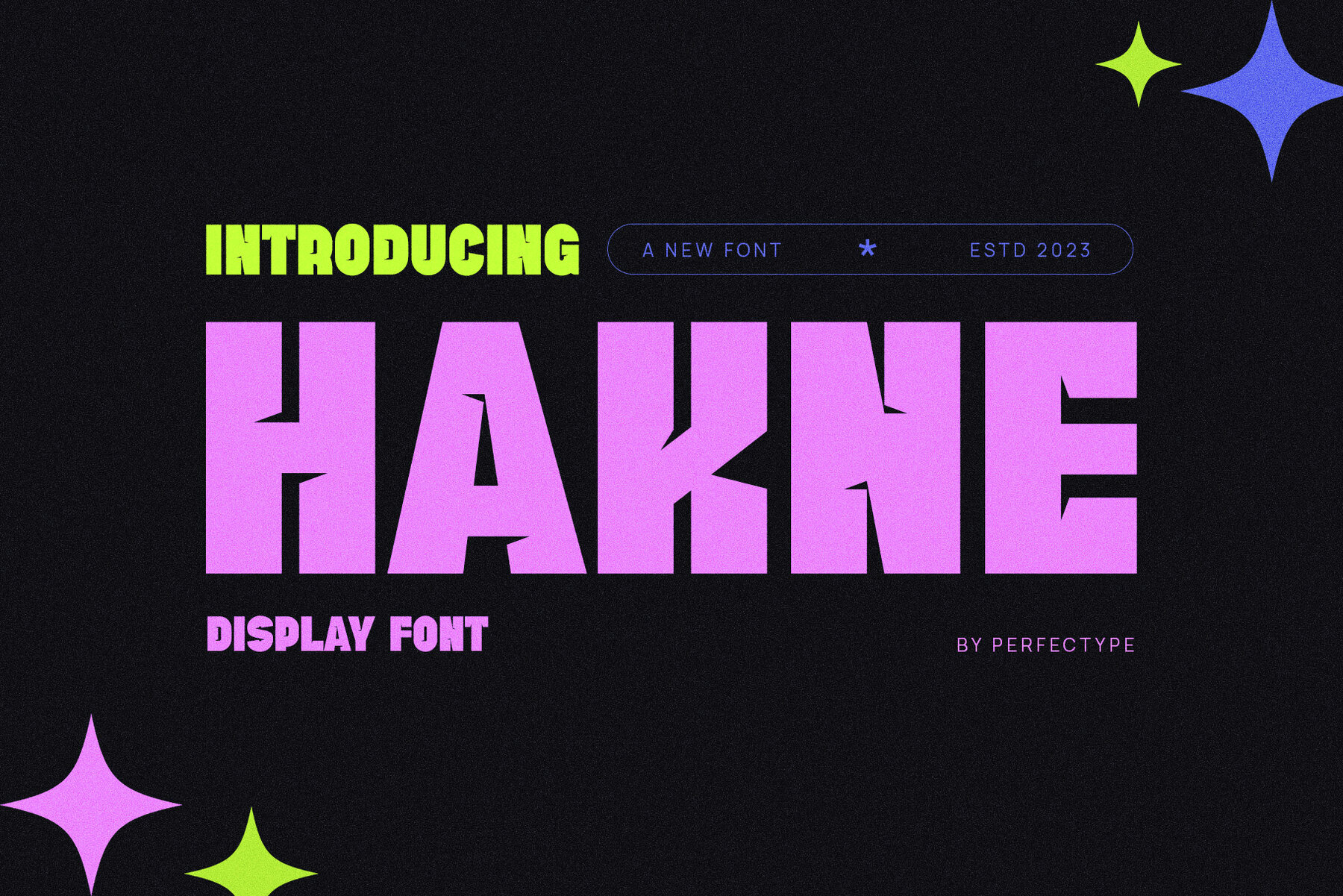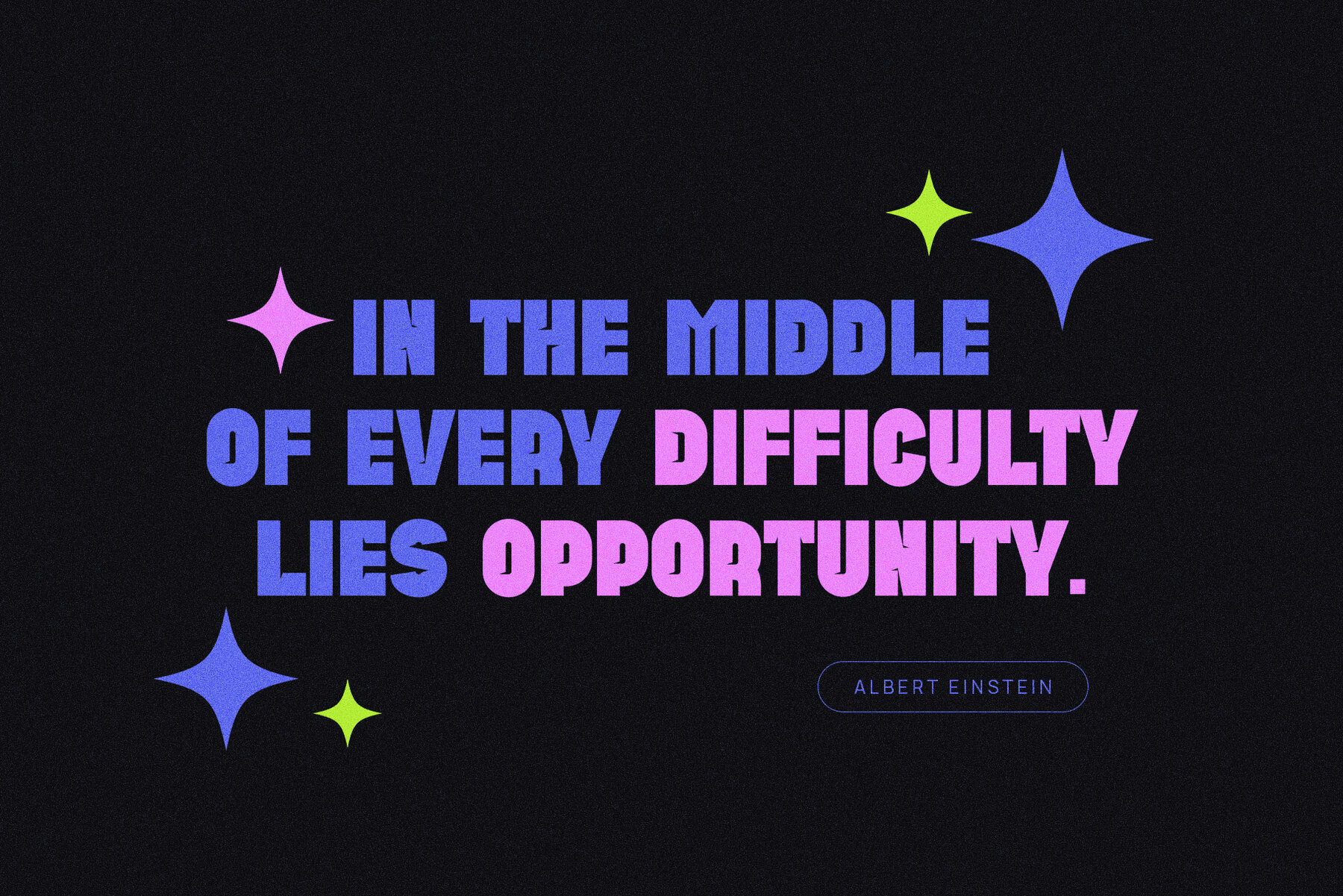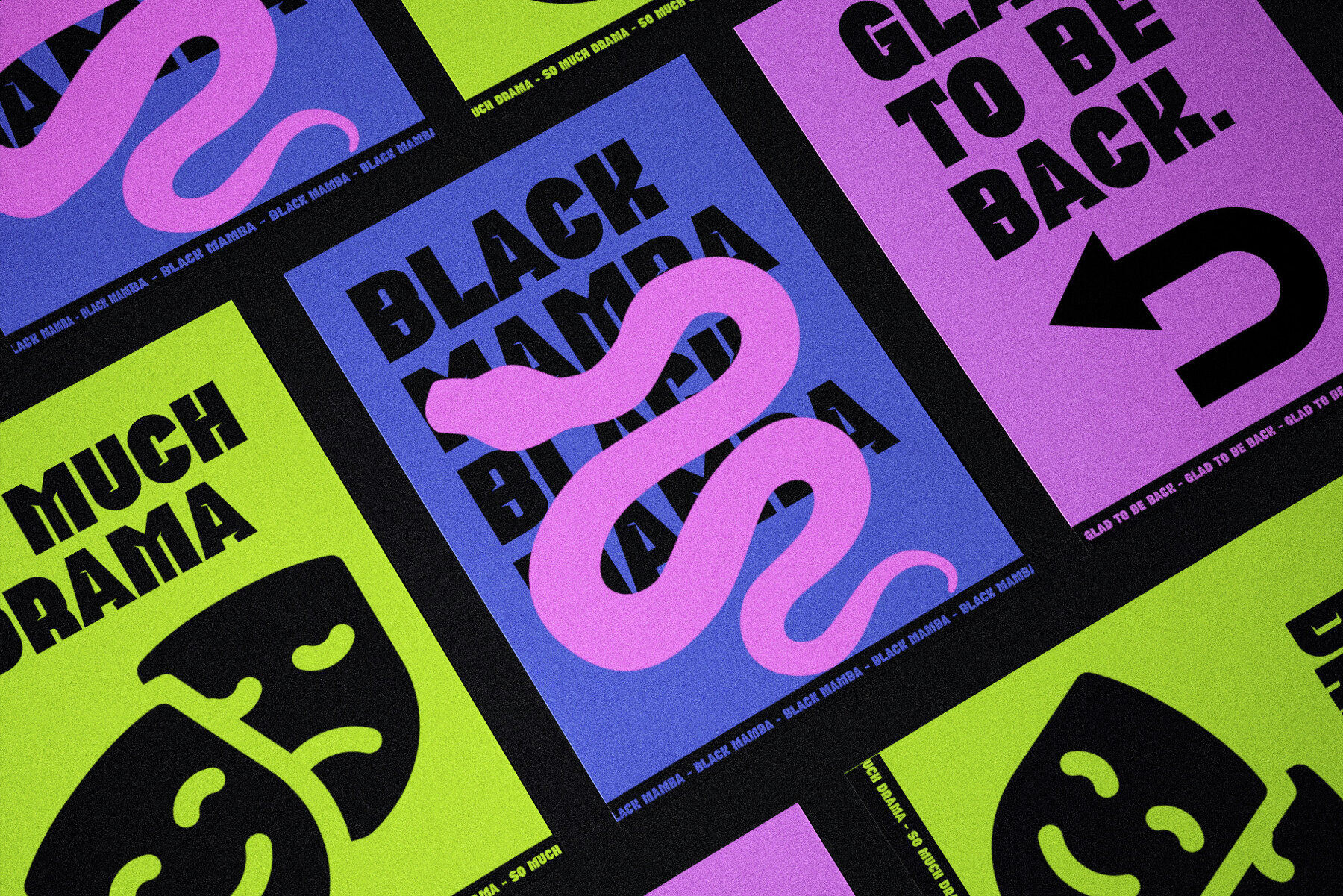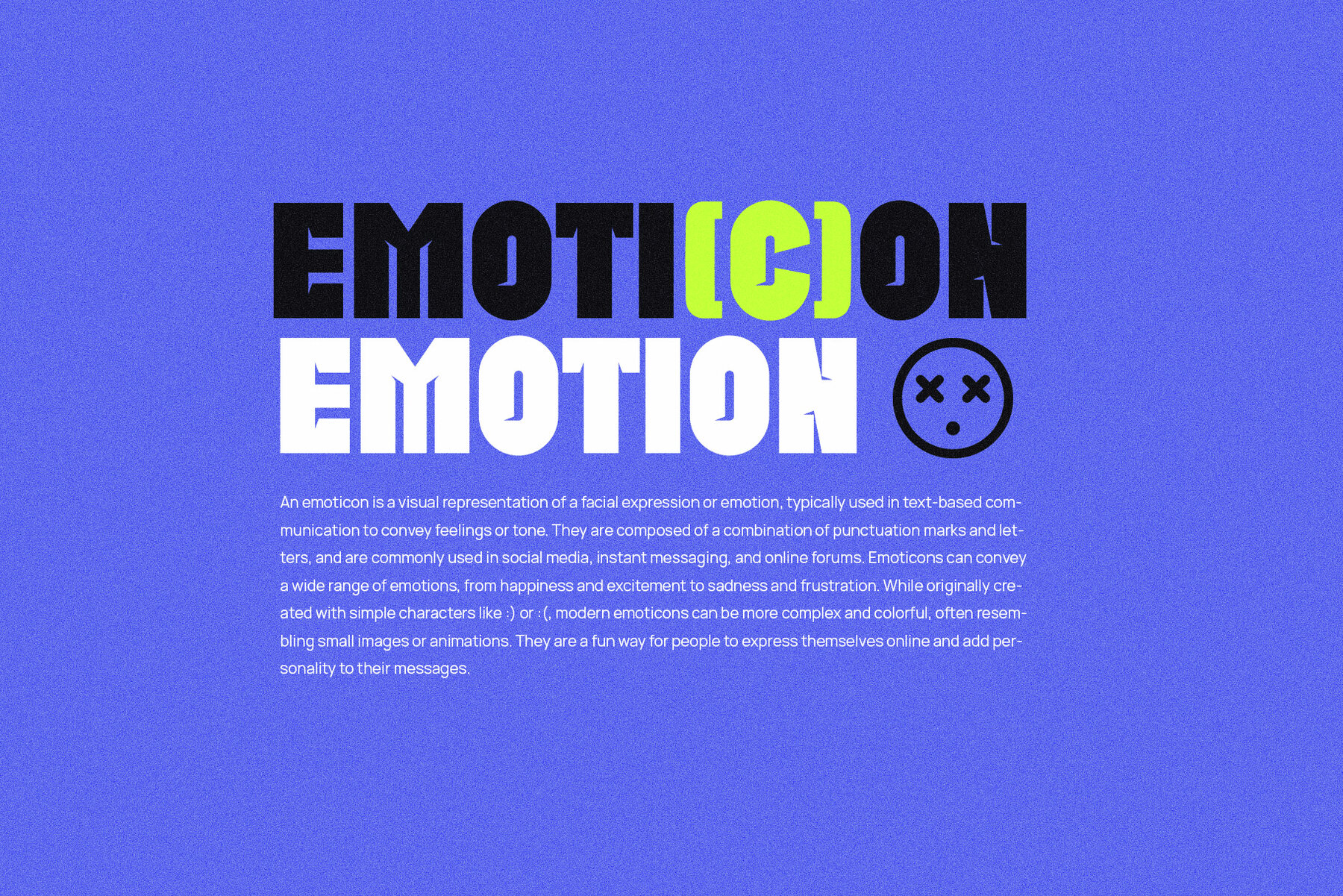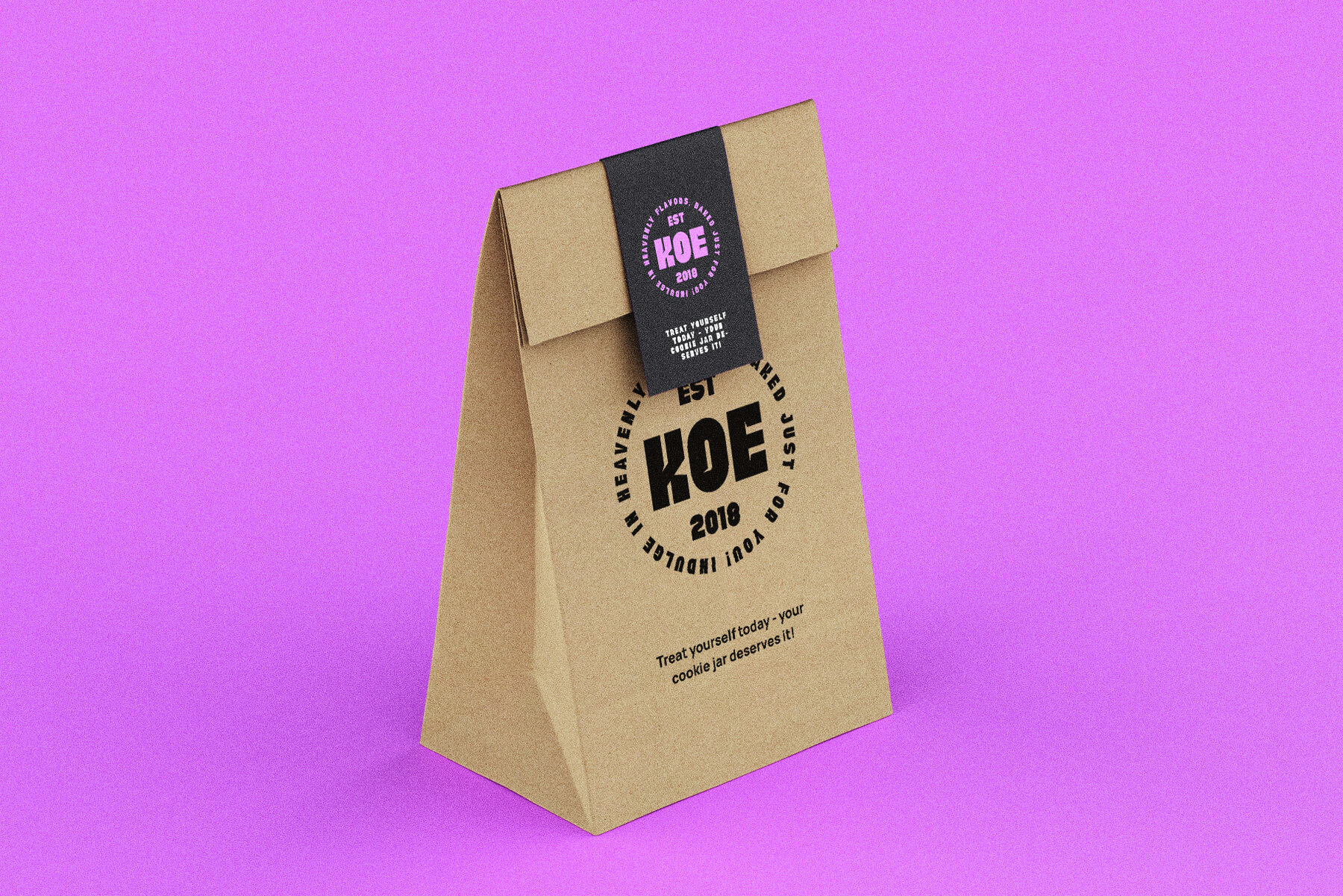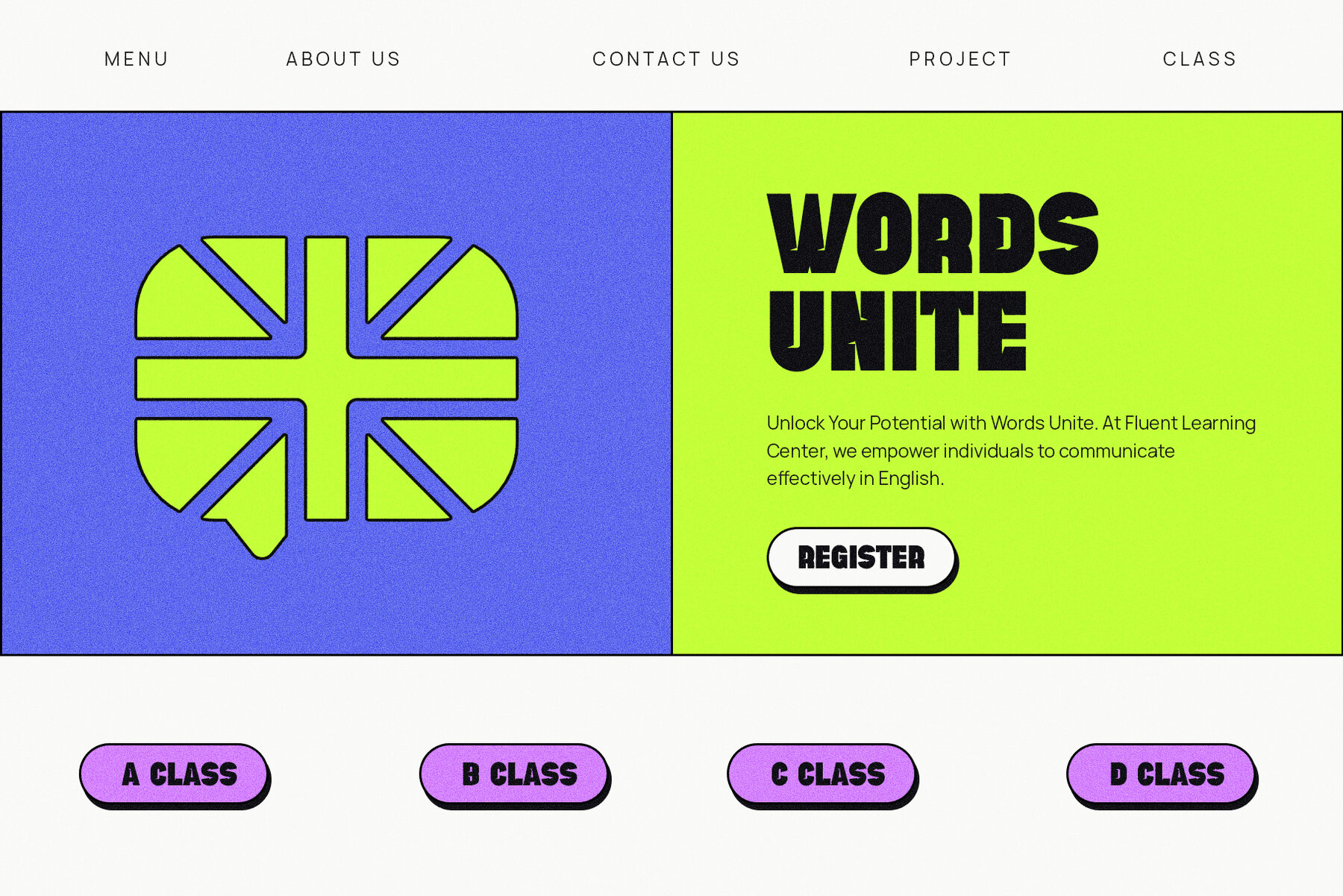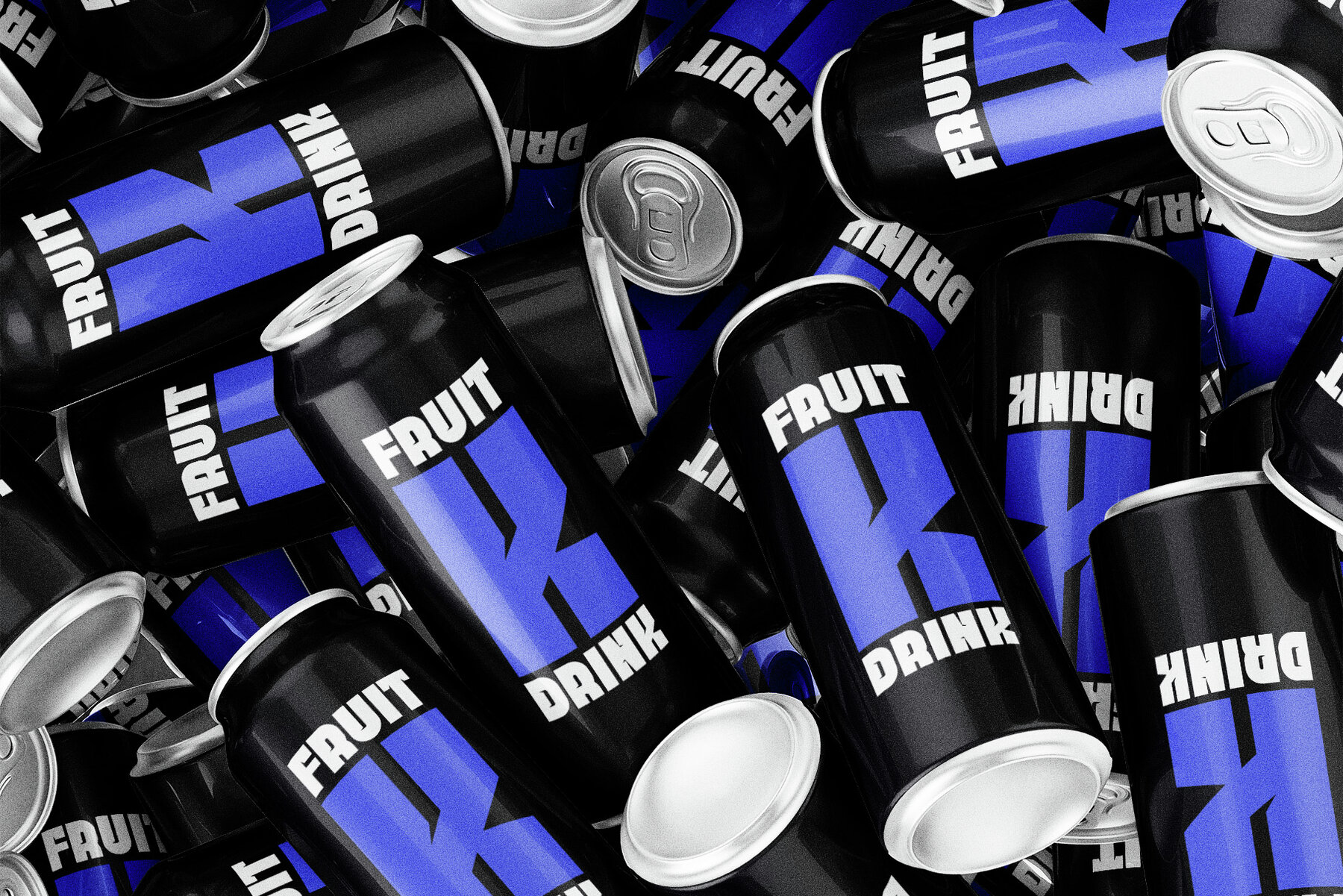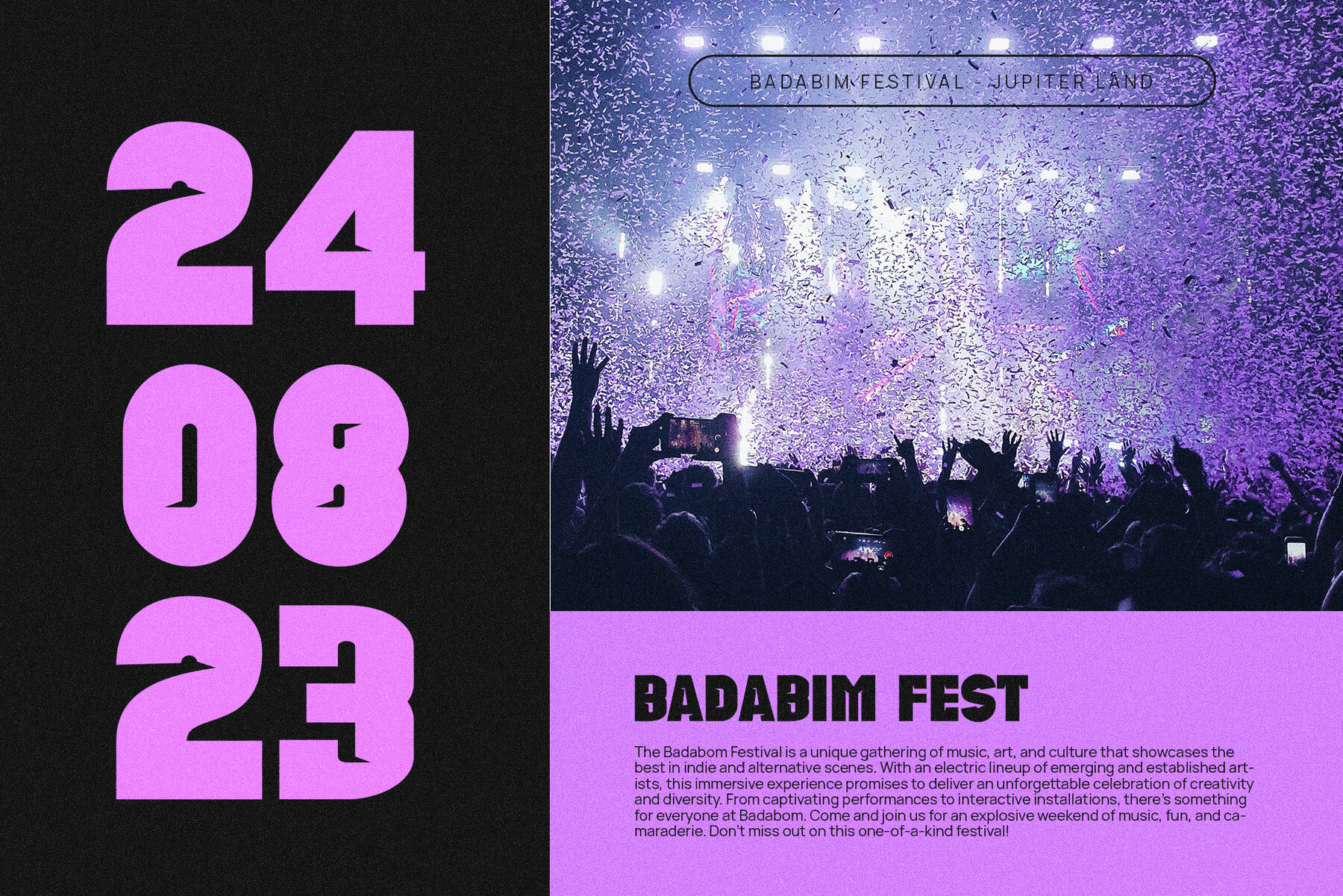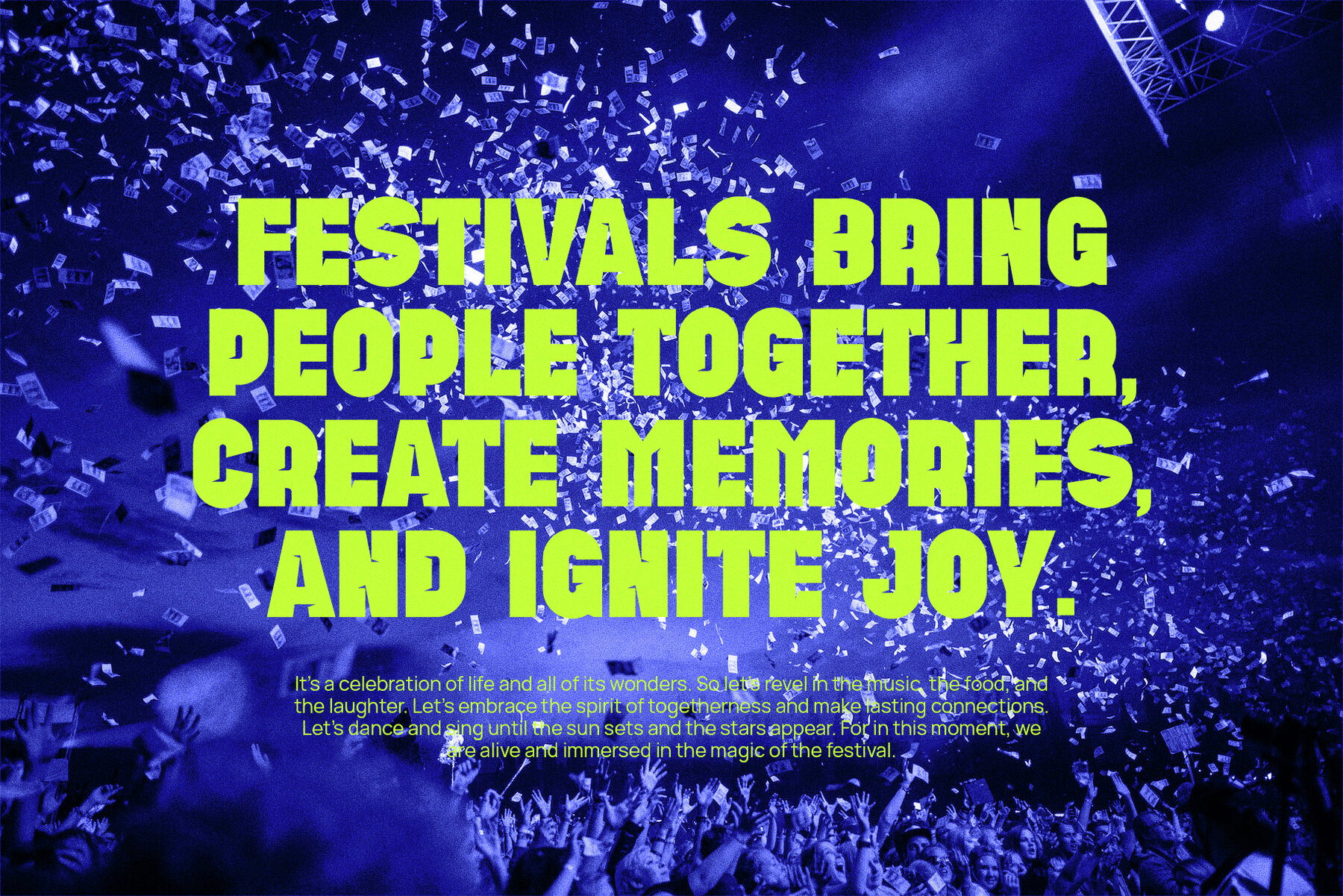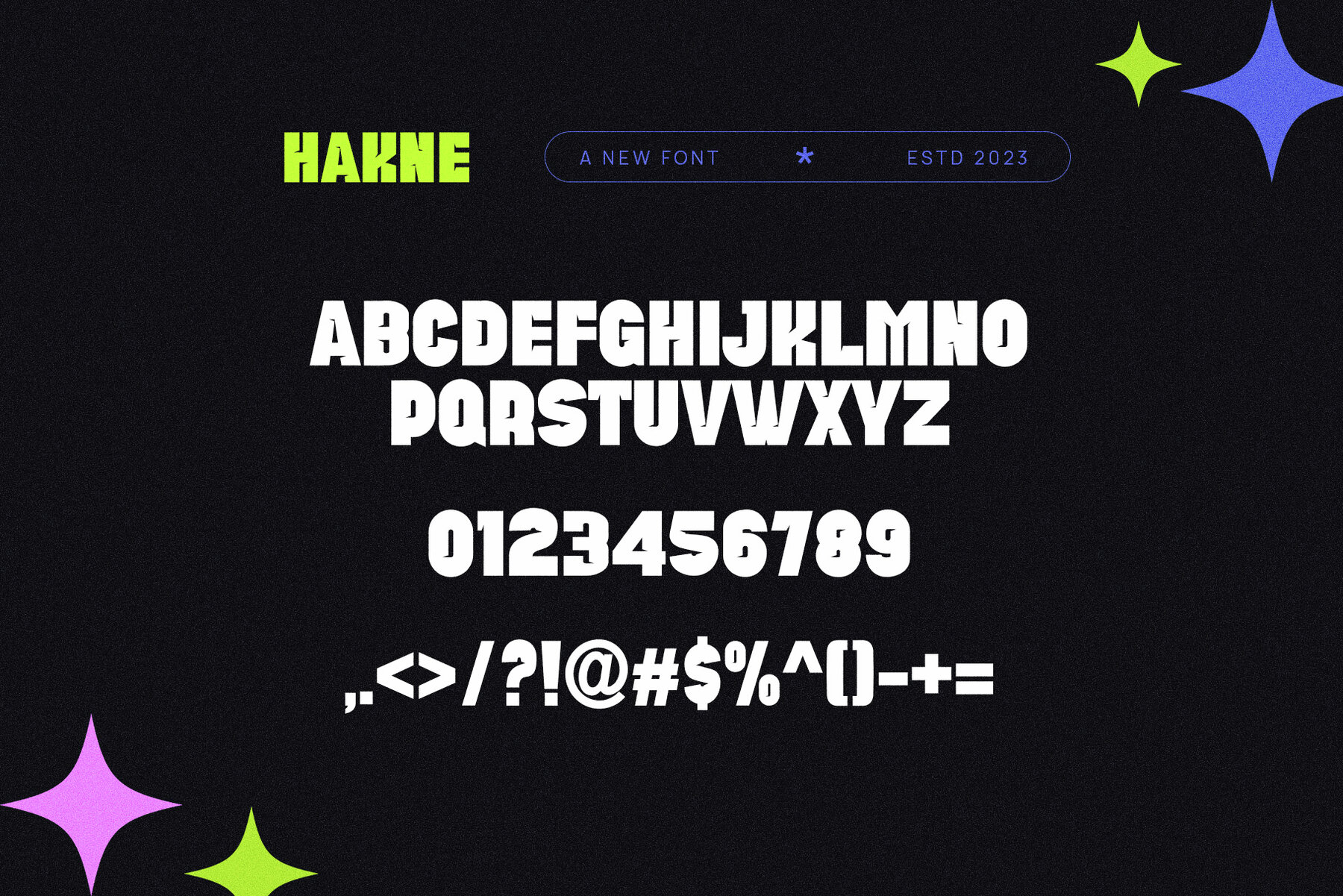
Hakne Font
Hakne Regular
Hakne by Setyo Wati
Hakne is a meticulously crafted sans serif font with exceptional balance and high readability. Ideal for various graphic design purposes, Hakne excels in:
- Branding
- Brochures
- Advertising
- Logos
- Magazines
- Layout designs
- Posters
- Post templates
- Games